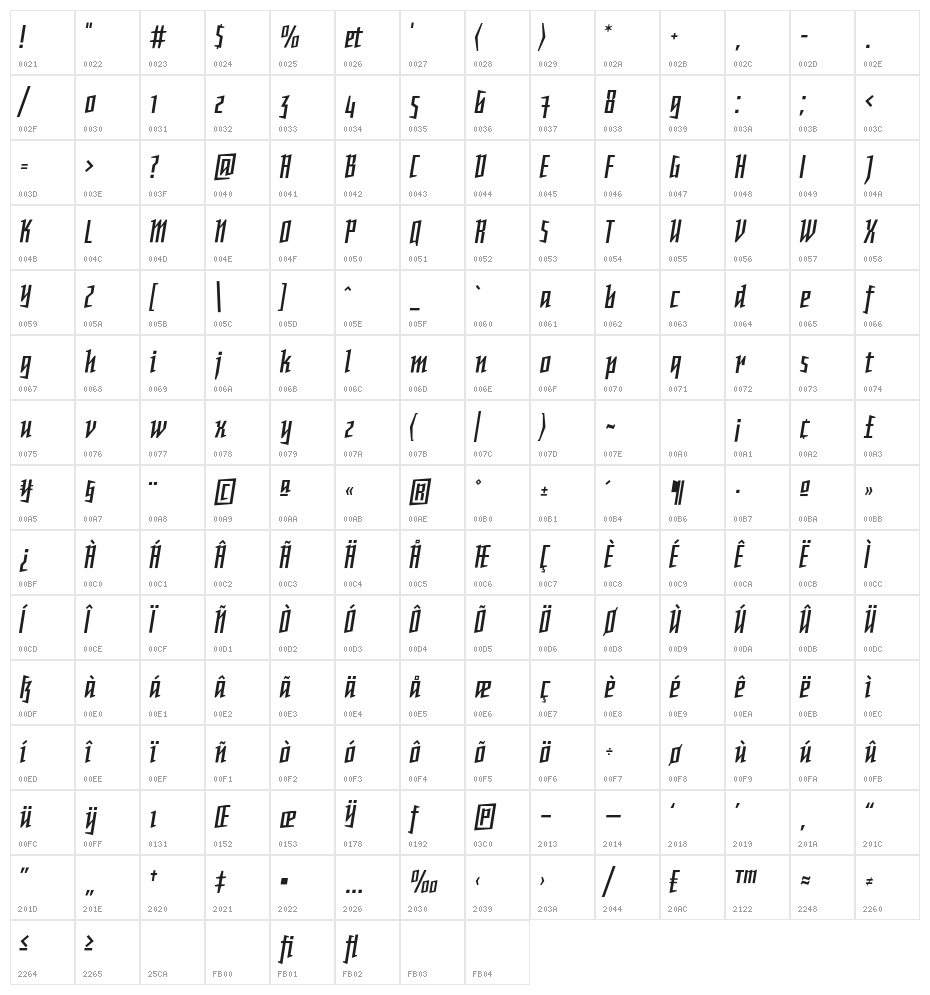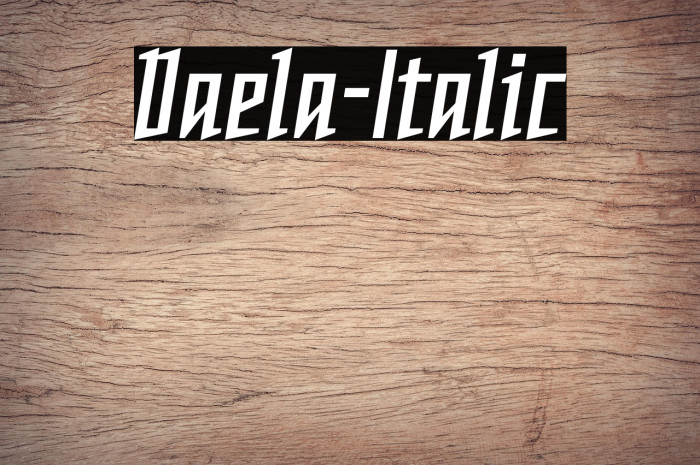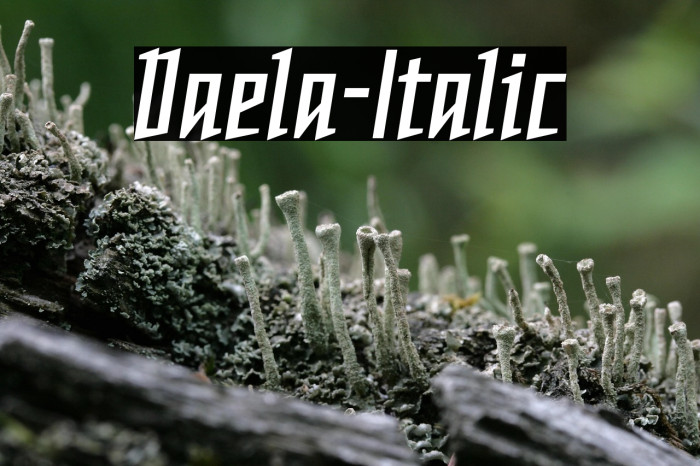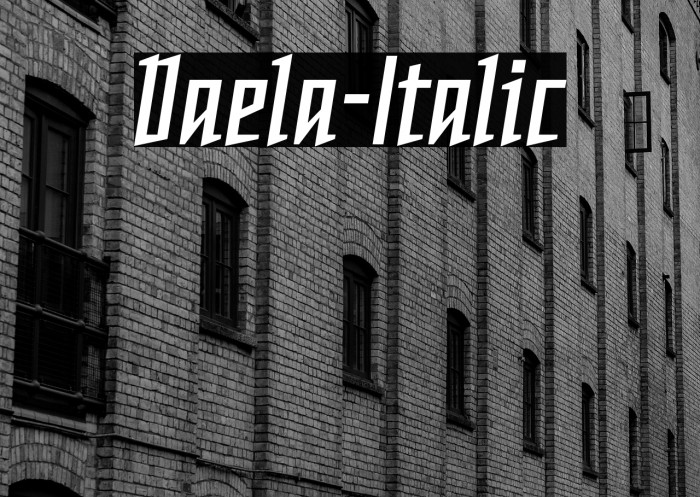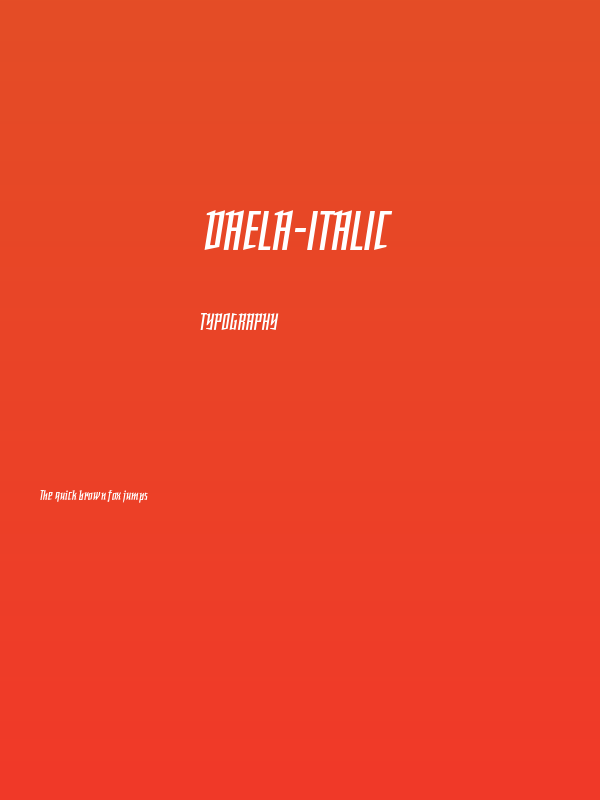
Daela-Italic Font
Daela-Italic Description
This font features a dynamic and angular design, characterized by its sharp edges and italicized form. The letters are slightly slanted, giving a sense of motion and energy. The uppercase and lowercase letters maintain a consistent style, with elongated strokes and pointed terminals. The numerals and special characters follow the same angular theme, ensuring uniformity across all characters. This font's unique style makes it stand out, offering a modern twist on traditional italic fonts.
| Proposed Projects | Ideal for branding projects, sports team logos, dynamic posters, and modern web design. |